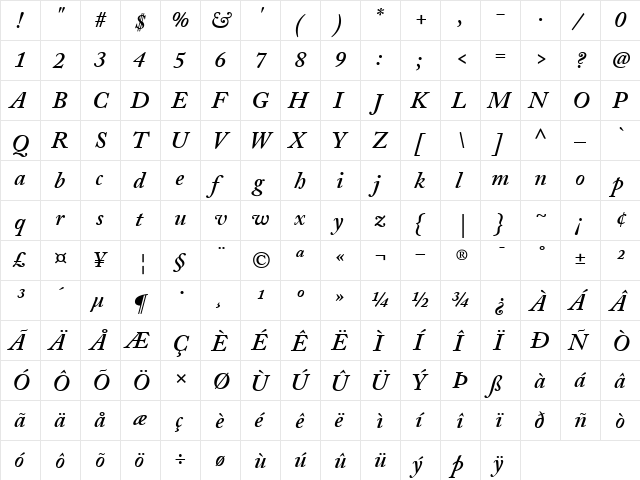
AdobeCaslon-SemiBold Semi BoldItalic
Design Context for AdobeCaslon-SemiBold Typeface
AdobeCaslon-SemiBold is a composed and adaptable typeface that performs quietly and consistently across a wide range of design contexts. The slanted form adds forward momentum and visual energy. The heavy weight commands attention and anchors typographic hierarchies.
Pro Tip: Use AdobeCaslon-SemiBold for emphasis, pull quotes, and subheadings where its slanted energy can add rhythm to the layout.